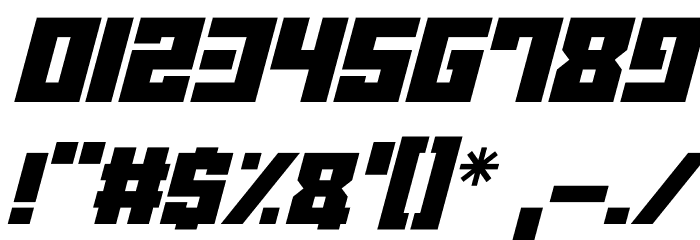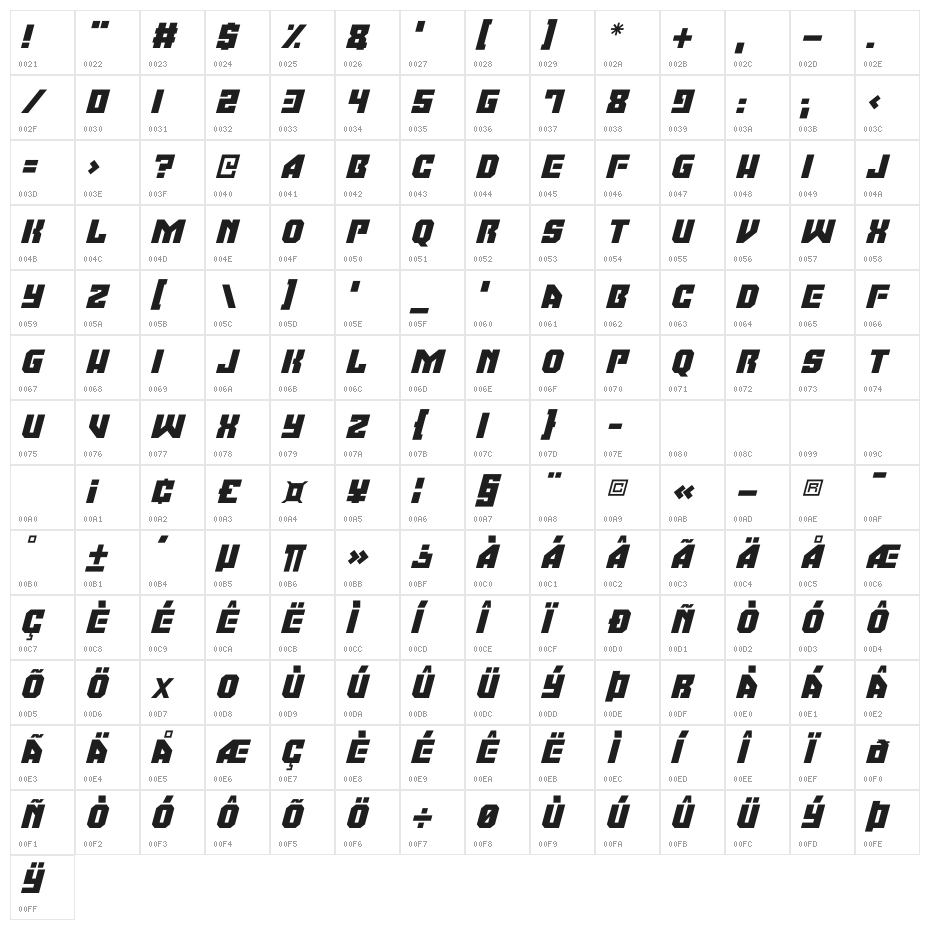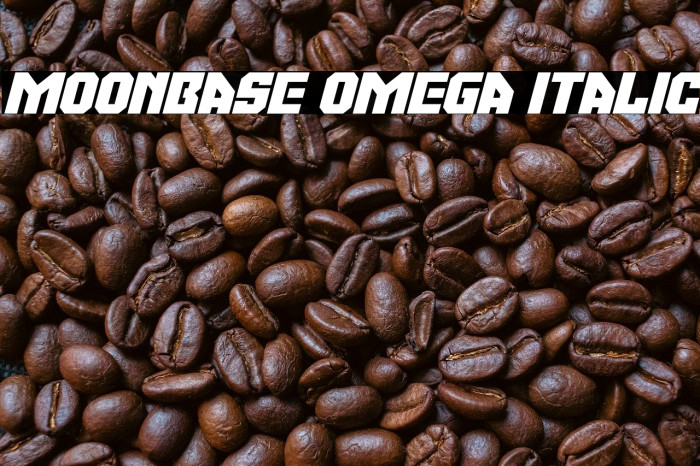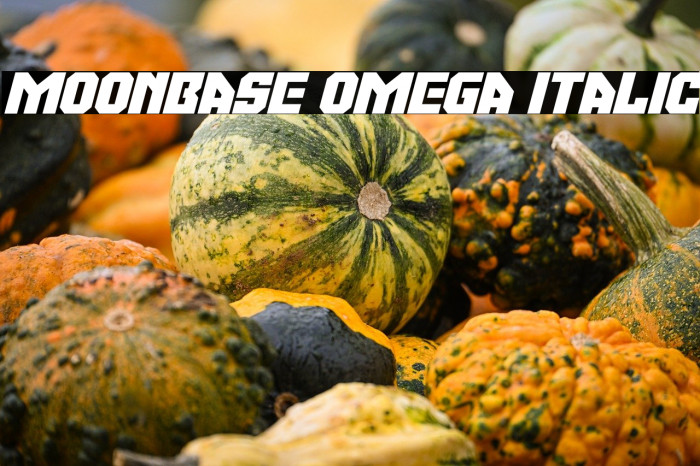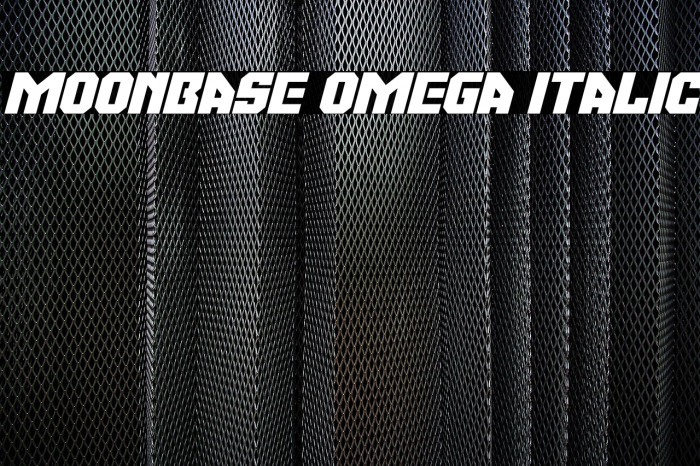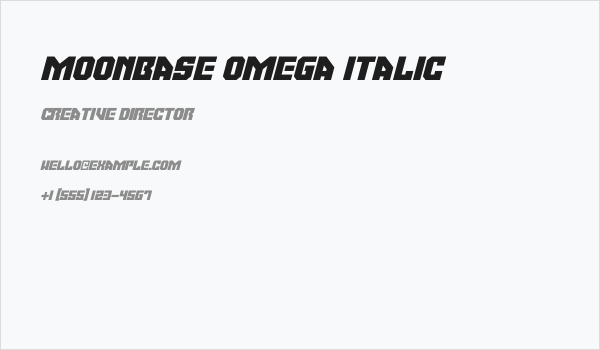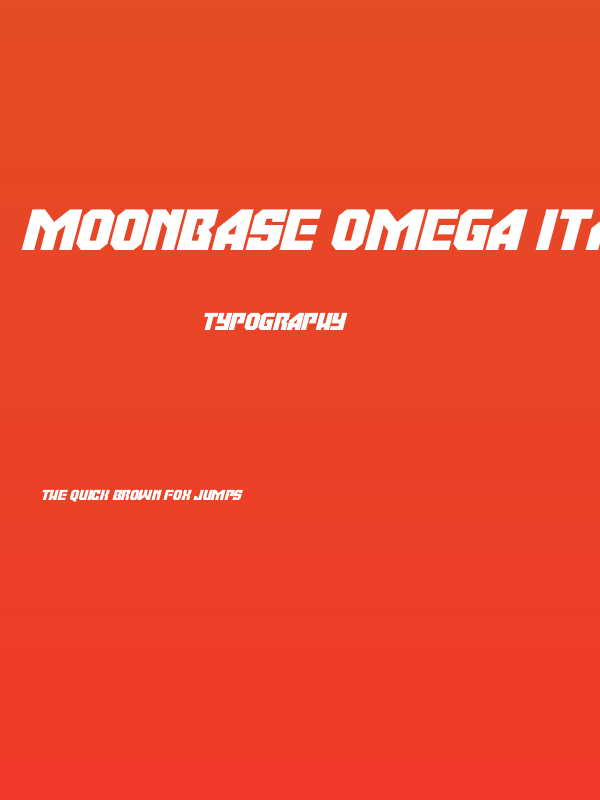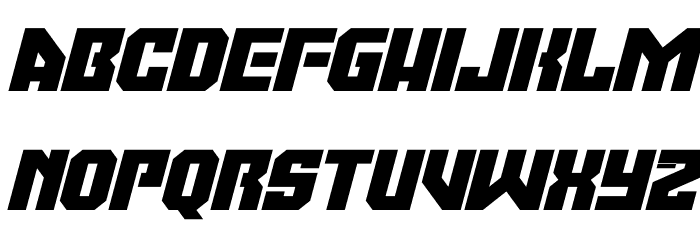
Moonbase Omega Italic Font
Moonbase Omega Italic Description
This font exhibits a bold, futuristic style with sharp, angular lines and a distinct italic slant. The characters are designed with a strong geometric influence, giving them a dynamic and aggressive appearance. The uppercase and lowercase letters maintain a consistent style, with the uppercase being particularly striking due to their blocky, robust forms. Numbers and special characters follow the same design principles, ensuring uniformity across the typeface. The overall impression is one of modernity and forward-thinking design, making it suitable for projects that require a bold statement.
| Proposed Projects | Ideal for sci-fi themed projects, video game titles, tech branding, and futuristic posters. |